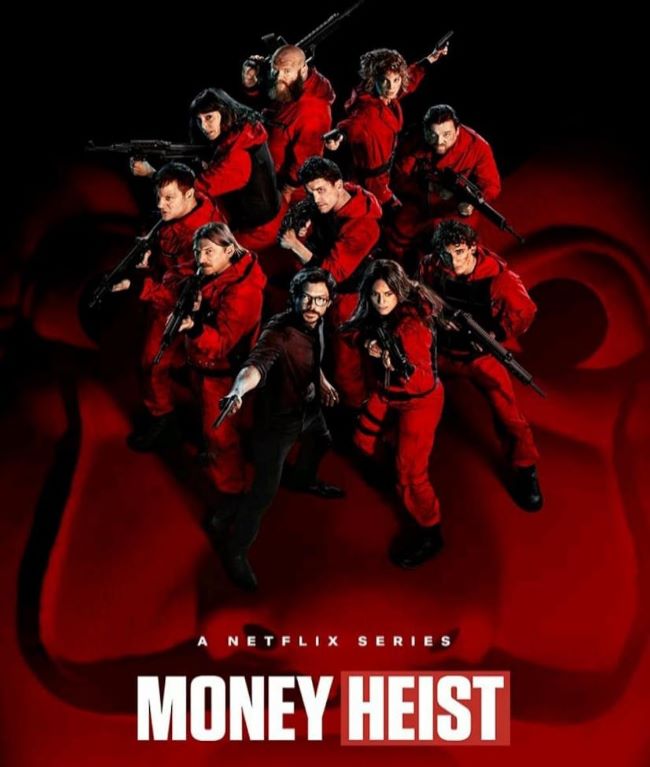
La Casa De Papel Font
La Casa De Papel Font represents one of the most recognizable typographic choices in modern television, perfectly capturing the rebellious spirit of Netflix’s Spanish masterpiece. This bold, impactful typeface has become synonymous with high-stakes drama and revolutionary themes that define the series.
Designed by Marco Ugolini – Italian graphic designer
The distinctive lettering used in La Casa De Papel Font features sharp, angular characteristics that mirror the show’s intense, calculated approach to storytelling. Its heavy weight and condensed structure create an immediate sense of urgency and danger, reflecting the pressure-cooker environment of the Royal Mint heist. The typography’s industrial feel complements the series’ themes of resistance against financial systems and social inequality.
About La Casa De Papel
La Casa De Papel series transformed from a Spanish television drama into a global cultural phenomenon. The show’s visual identity, anchored by the Money Heist Font, plays a crucial role in establishing its brand recognition across international markets. The typography works seamlessly with the iconic red jumpsuits and Salvador Dalí masks to create a cohesive visual language.